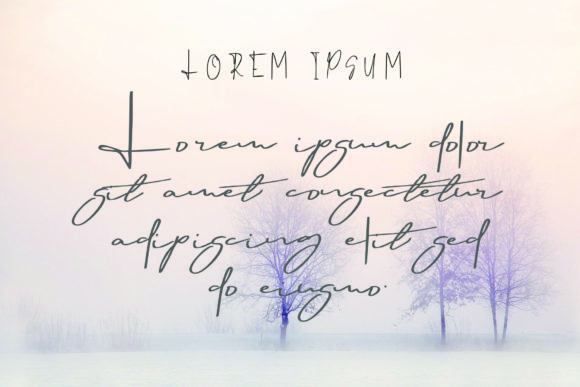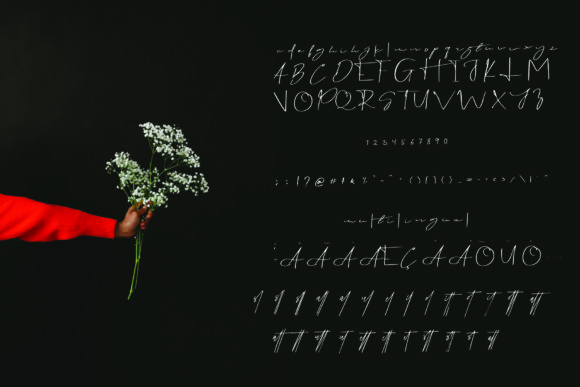
Alan Walker Font
About Alan Walker Font
Alan Walker is a timeless handwritten font. It’s classy style will elevate a wide range of design projects to the highest level, be it branding, headings, wedding designs, invitations, signatures, logos, labels, and much more!